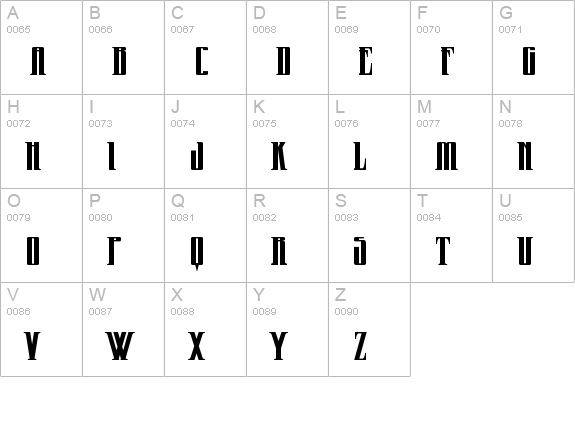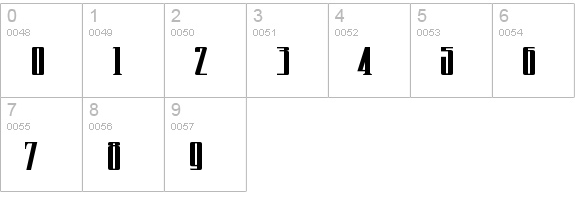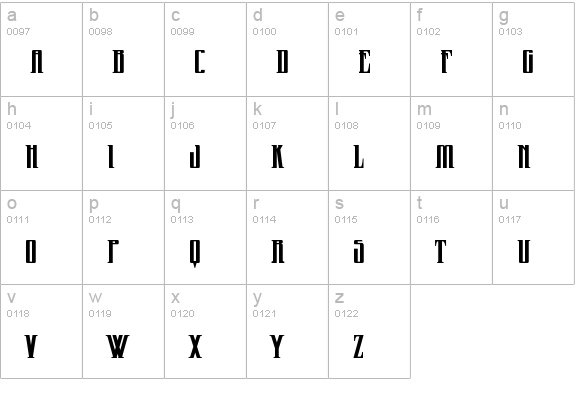
Wicked Queen BB Font Details
Introducing the enchanting and bewitching Wicked Queen BB font, a captivating typeface that exudes elegance, sophistication, and a touch of mystery. This font is an absolute must-have for those seeking to add a touch of dark enchantment to their designs. With its intricate and ornate letterforms, Wicked Queen BB font effortlessly captures attention and leaves a lasting impression. Each character is delicately crafted, boasting unique details that embody the essence of a wicked queen ruling over a mystical kingdom. Whether you're designing invitations for a gothic-themed event, creating spellbinding logos, or crafting spellbinding headlines, Wicked Queen BB font will elevate your projects to new heights. Its versatile nature allows it to seamlessly blend with various design styles, adding a touch of drama and intrigue to any composition. One of the most incredible aspects of Wicked Queen BB font is that it is freely available to download at FontsMarket.com. Yes, you heard it right! This stunning font can be yours without any cost, making it a true treasure for designers, artists, and creatives alike. Embrace the dark allure of Wicked Queen BB font and unleash your creativity. Download it today from FontsMarket.com and let the magic begin.